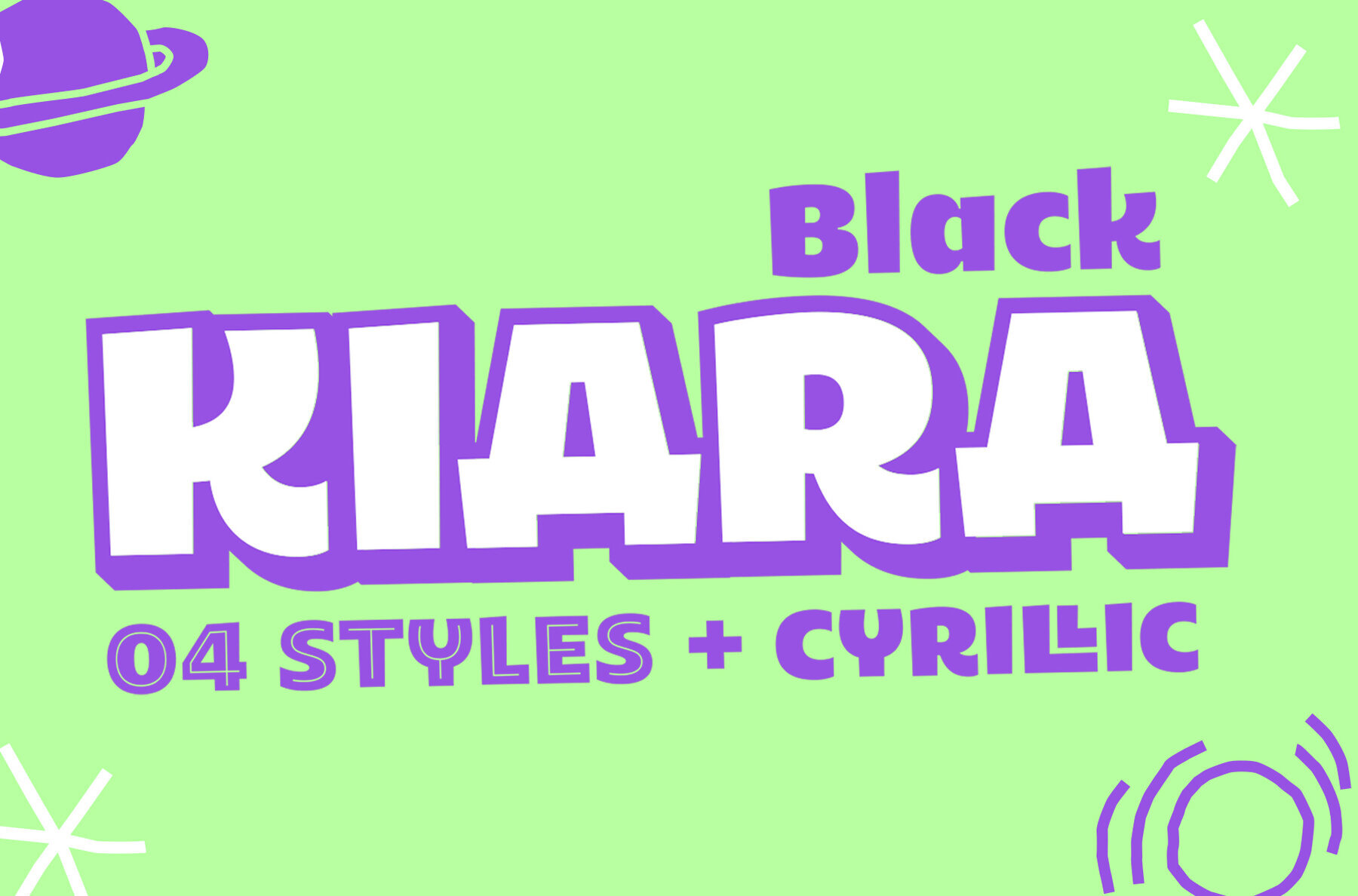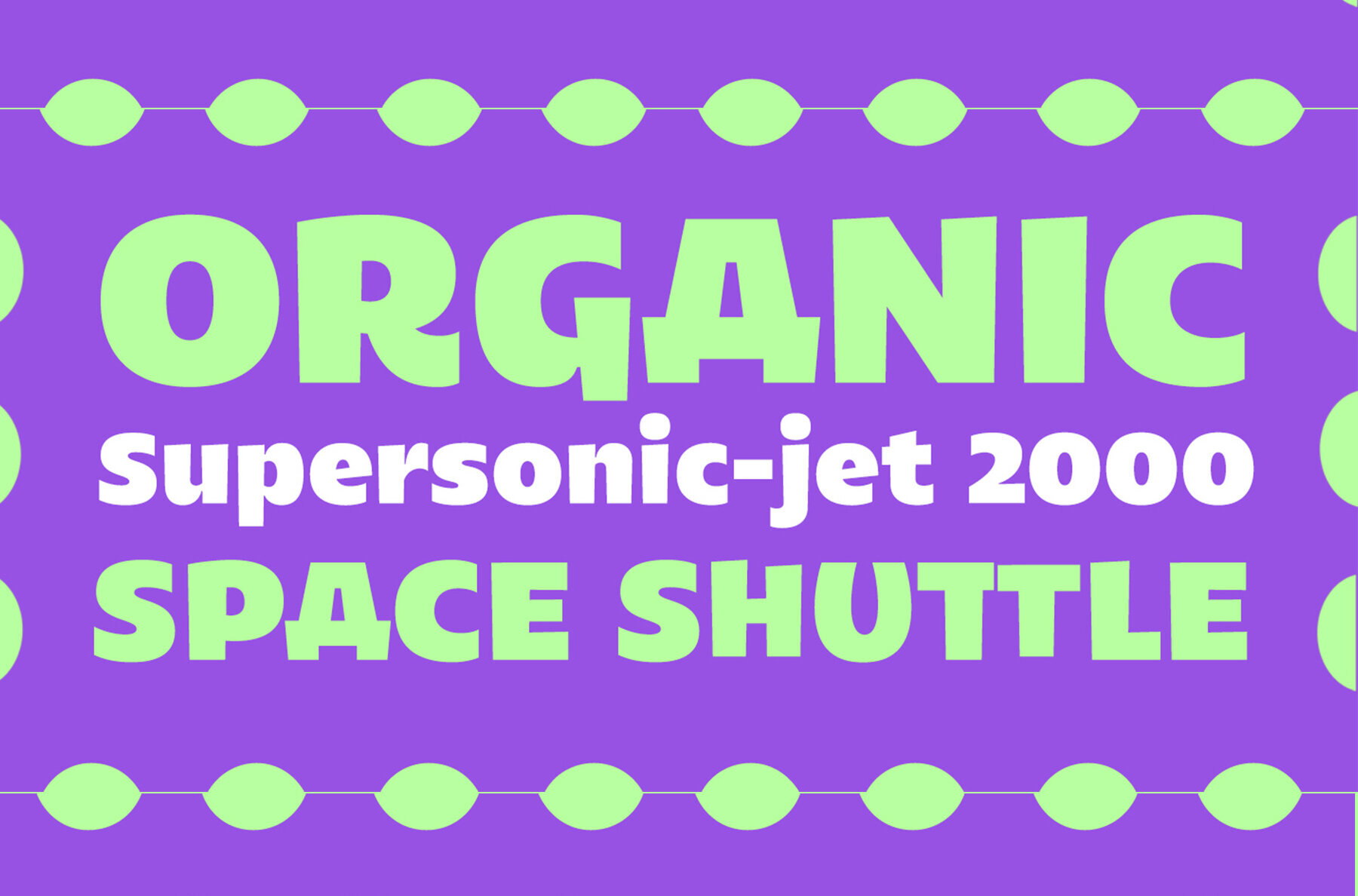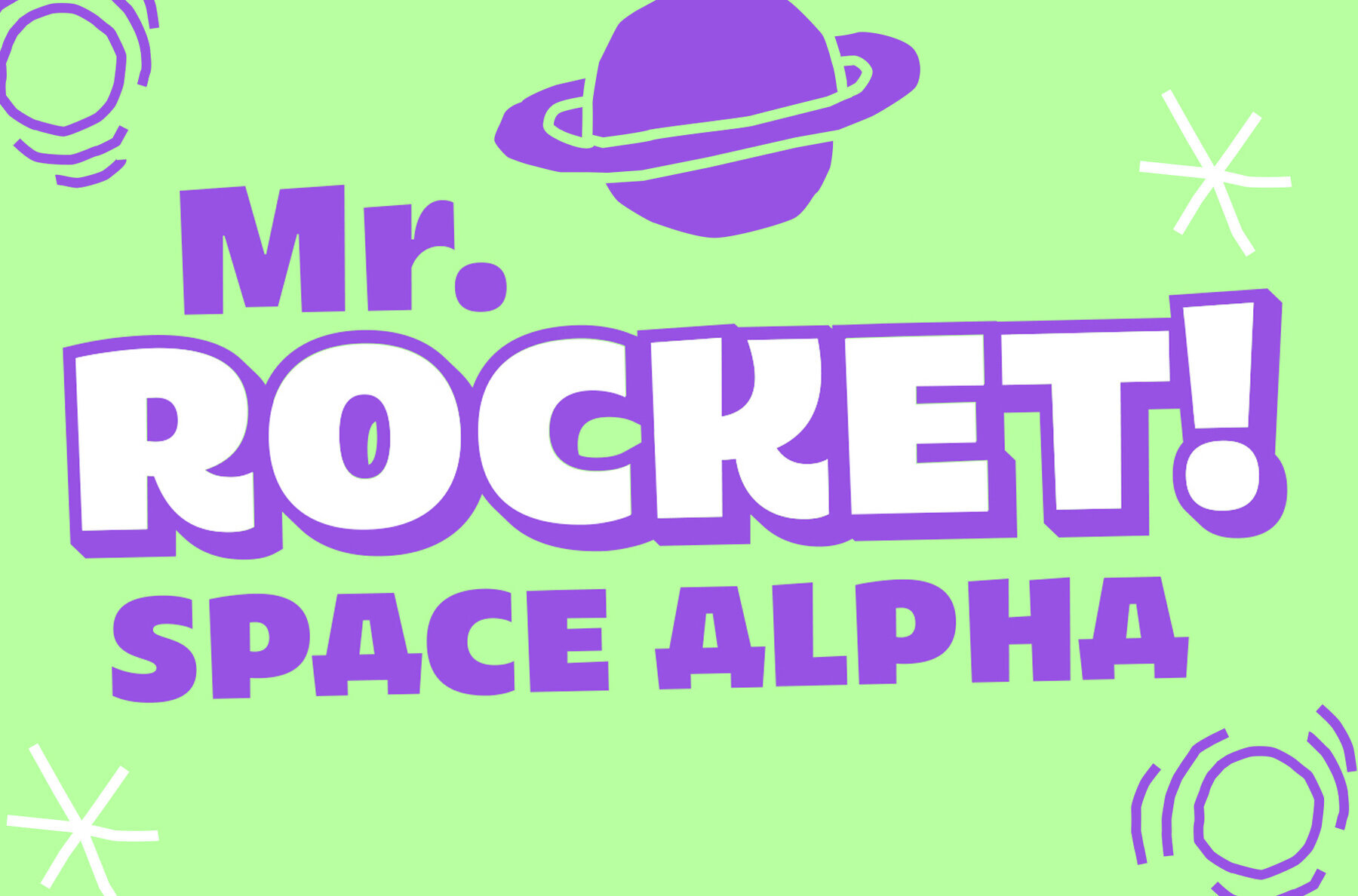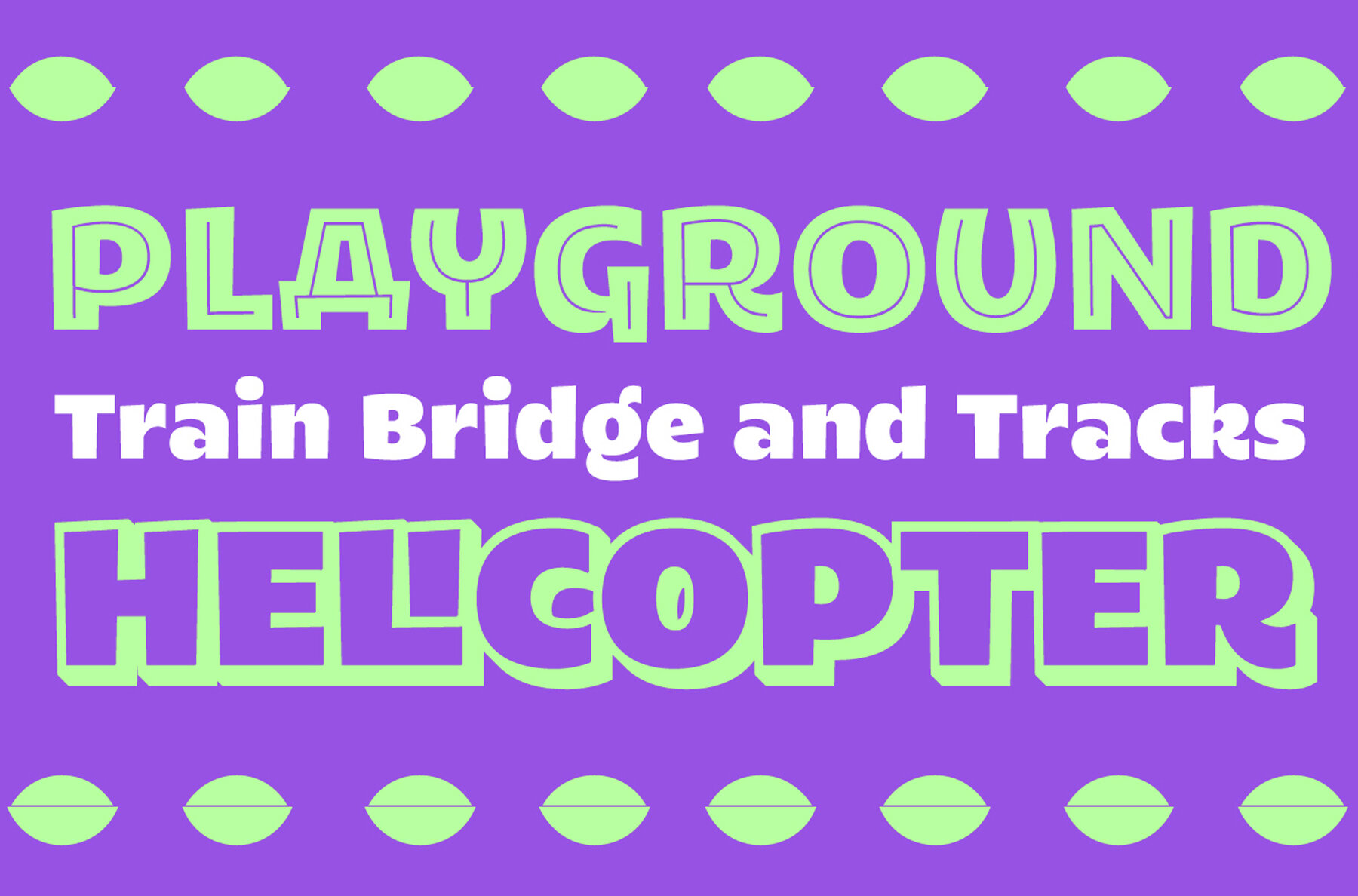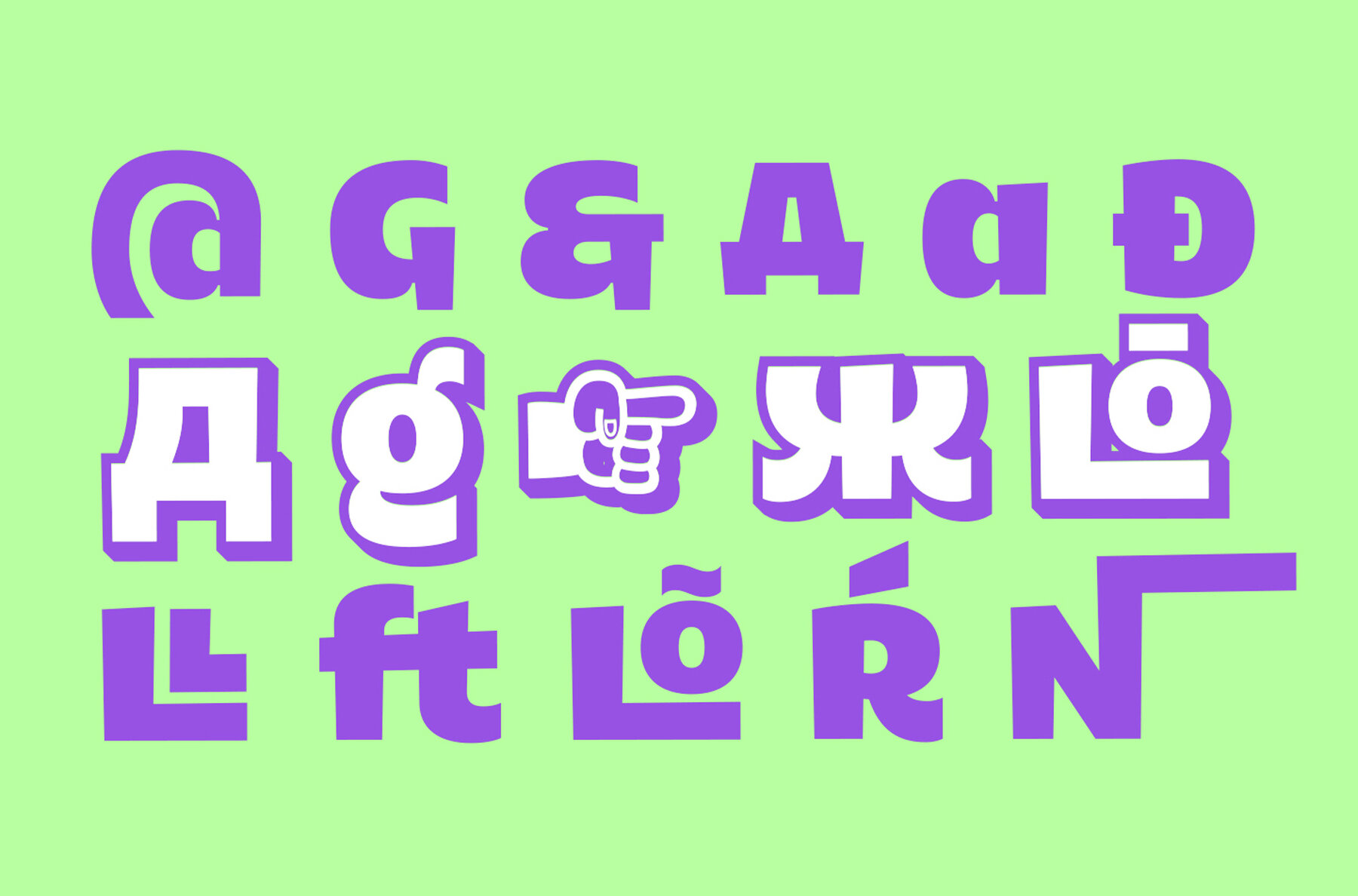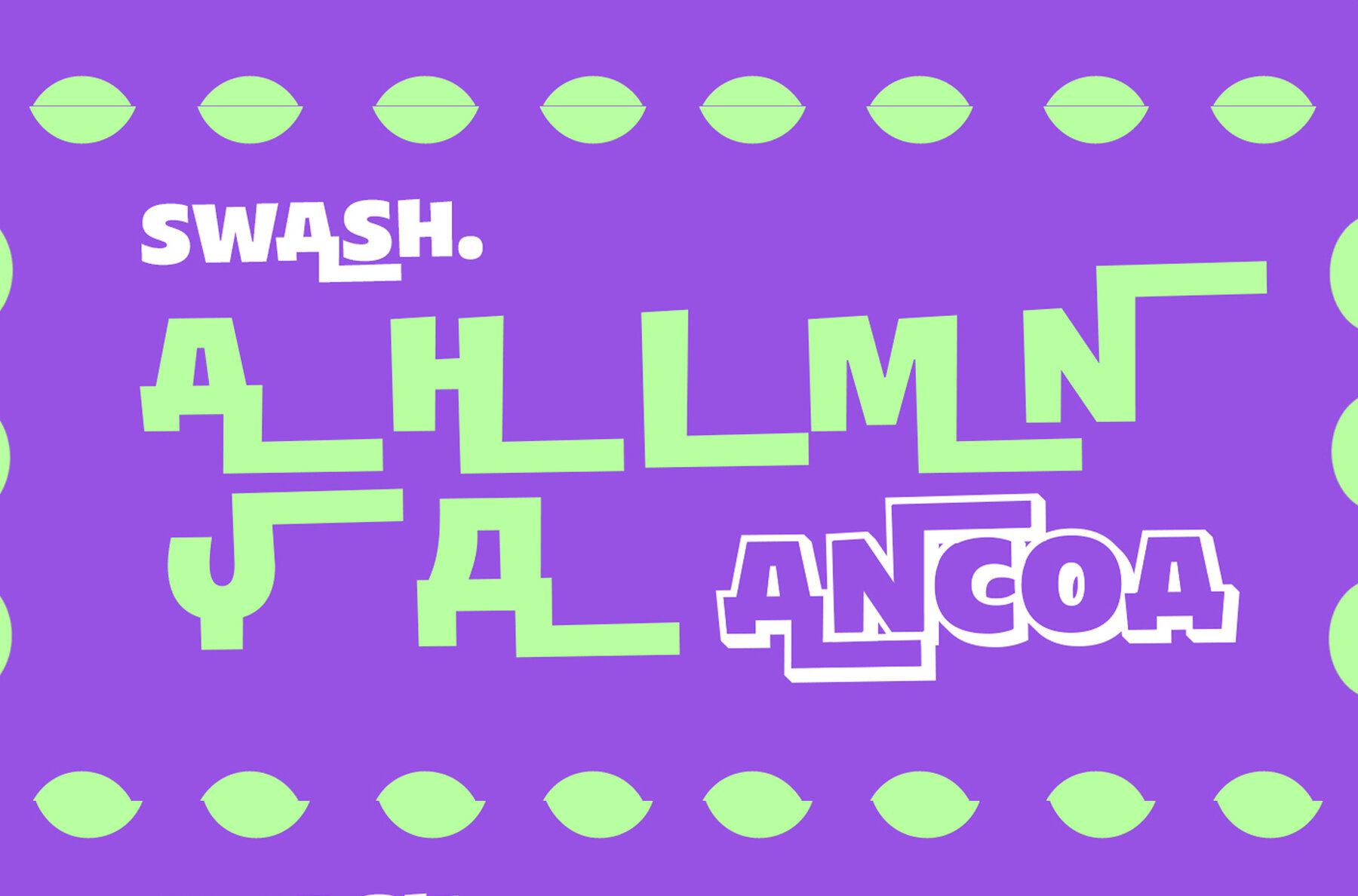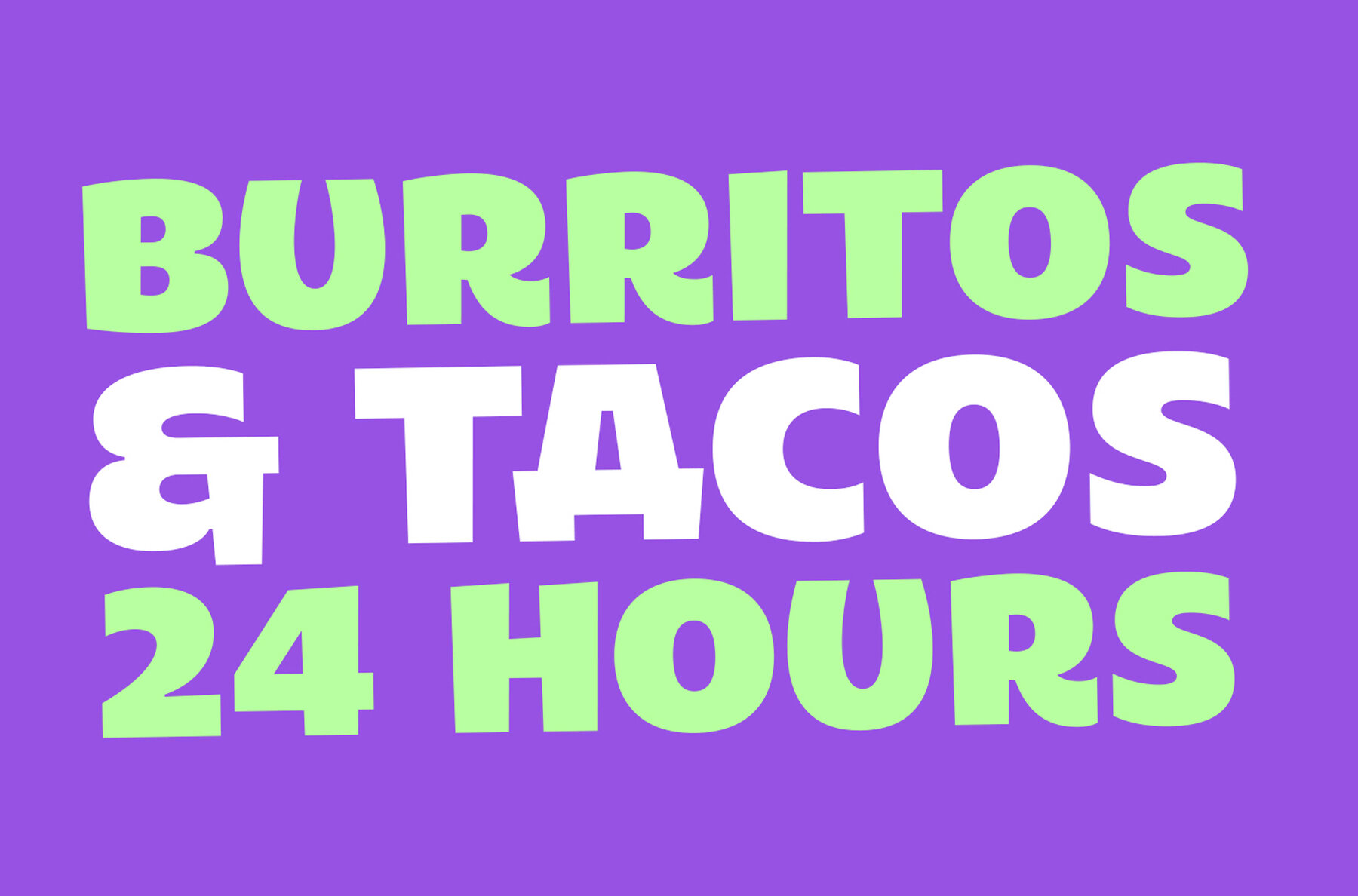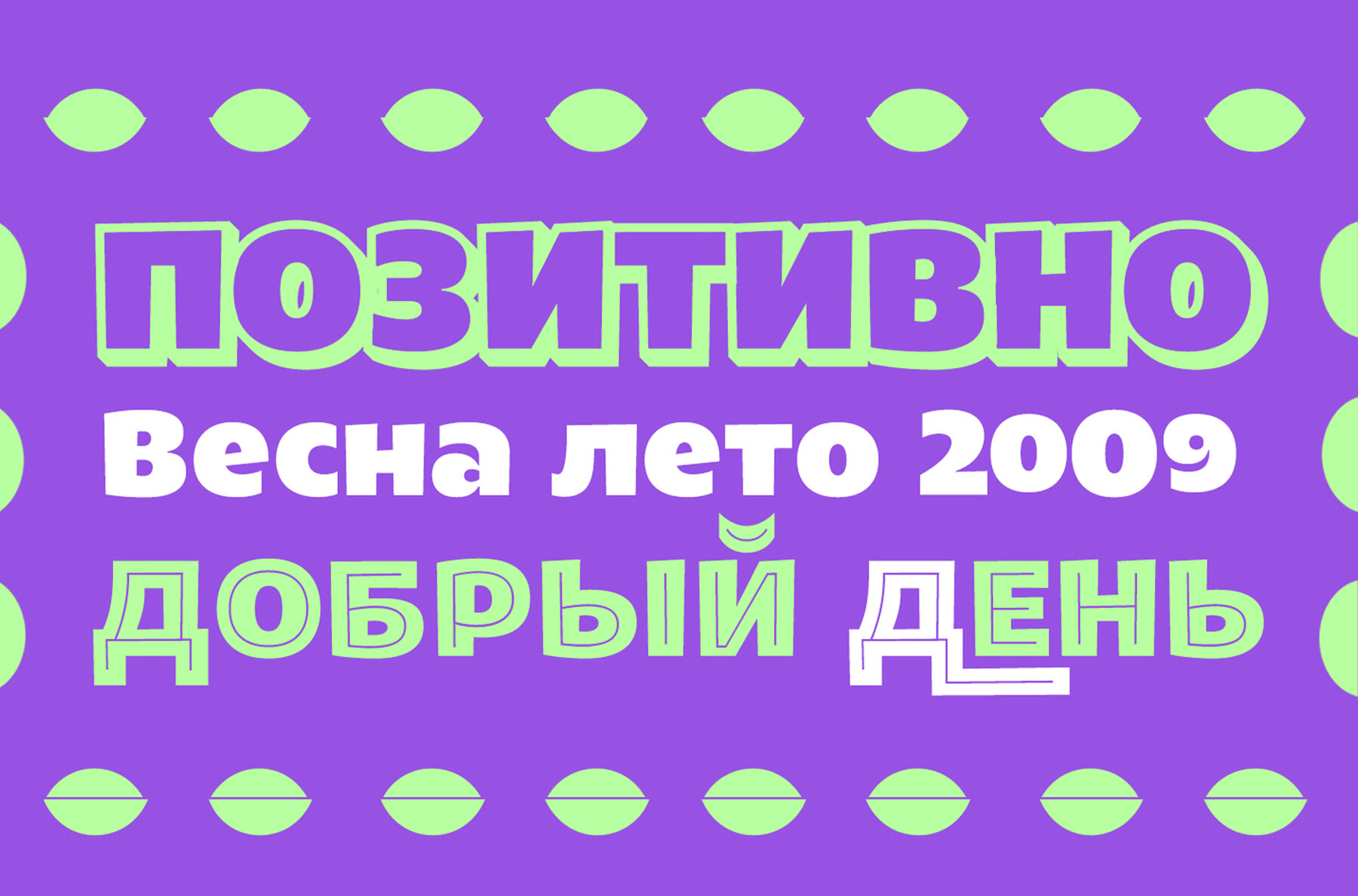
Kiara Black Font
Kiara Black Regular
Kiara Black Regular Inline
Kiara Black Regular Shadow
Kiara Black Regular XLayer
Kiara is an improved version of "Laika" in this font contains 4 styles to use together, contains the Cyrillic alphabet, ligatures and many Alternatives, especially for large titles